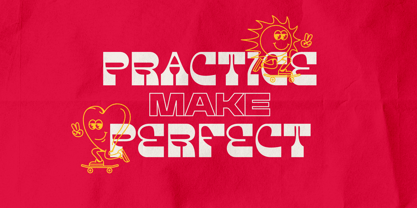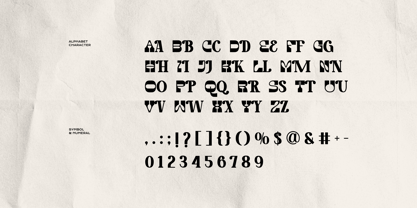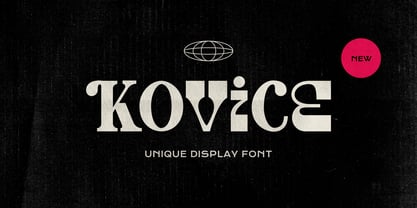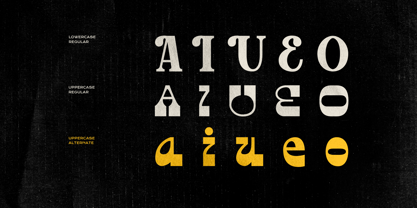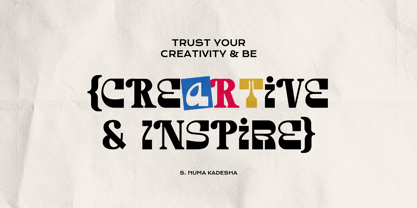
Kovice
by Imoodev
The Kovice Font Family was designed by Aulia Savira Putri and published by Imoodev. Kovice contains 1 styles. More about this family
KOVICE is a bold, experimental display font that masterfully blends retro psychedelic aesthetics with a clean, modern grit. Unconventional silhouettes, this typeface is designed to be the centerpiece of any visual project. Each character features unique, liquid like terminals and geometric cutouts that challenge traditional letterforms, making it perfect for designers who want to break away from the mundane. Whether used in branding, edgy editorial layouts, or vibrant poster art, KOVICE delivers a heavy dose of personality and visual rhythm. It comes packed with unique alternates and ligatures, allowing you to customize your typography into a true piece of custom lettering. Kovice excels in creative design contexts such as headlines, posters, branding, advertising, packaging, playbills, magazines, signage, postcards, labels, covers, and merchandise, as well as any project aiming for a unique and standout appearance. Its distinctive blend of letter shapes makes this font boldly theatrical, evoking a nostalgic retro feel merged seamlessly with contemporary style.
Designers: Aulia Savira Putri
Current Foundry: Imoodev